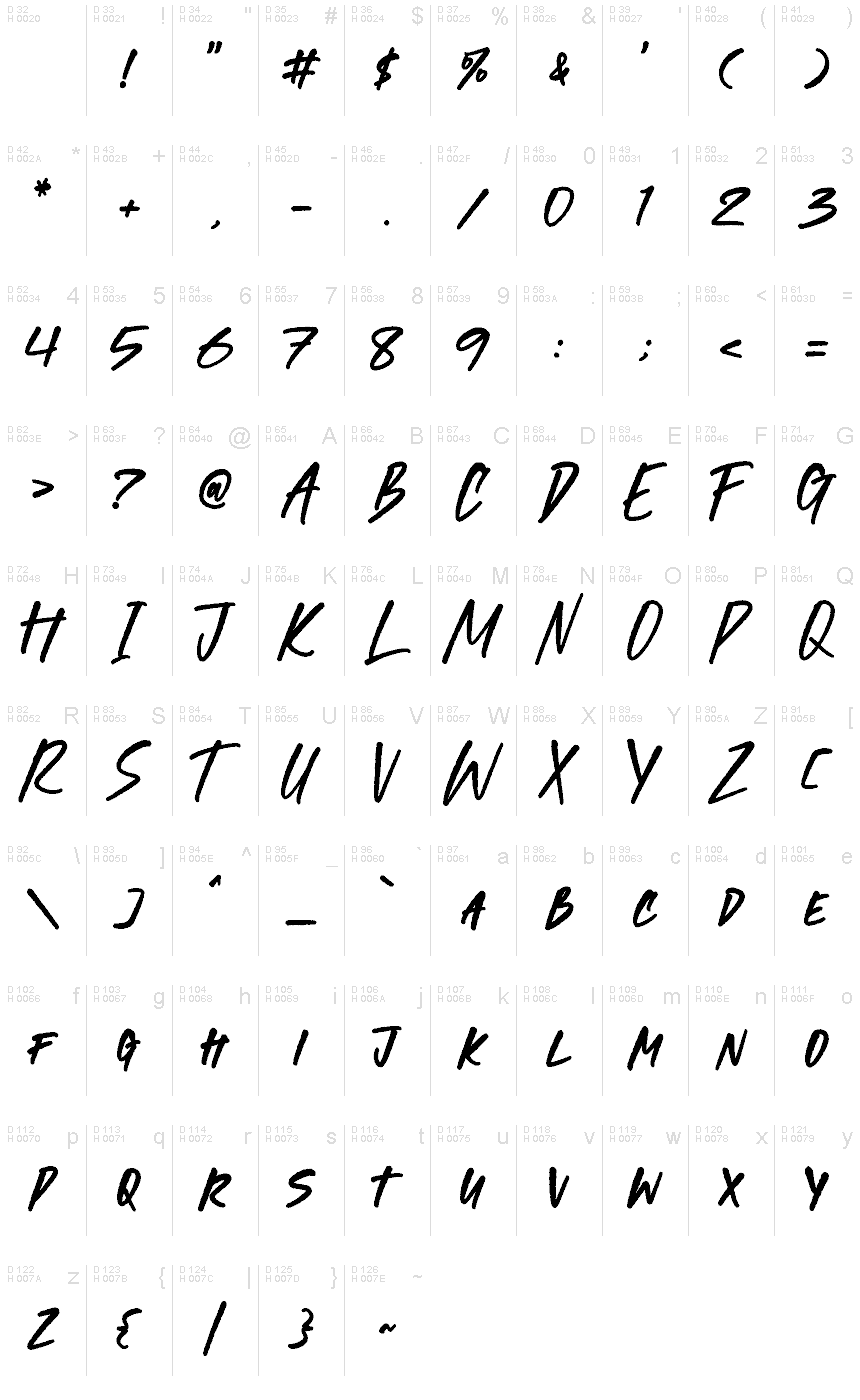
Morbides Junky
Morbides Junky font by Letterena Studios is a free handwritten font with a clean and expressive design. The condensed letters offer an organic, casual style with modern flair for every context in which they are used. They also present a hint of playfulness, making each project engaging for designers who want to leave their audience amused and delighted.